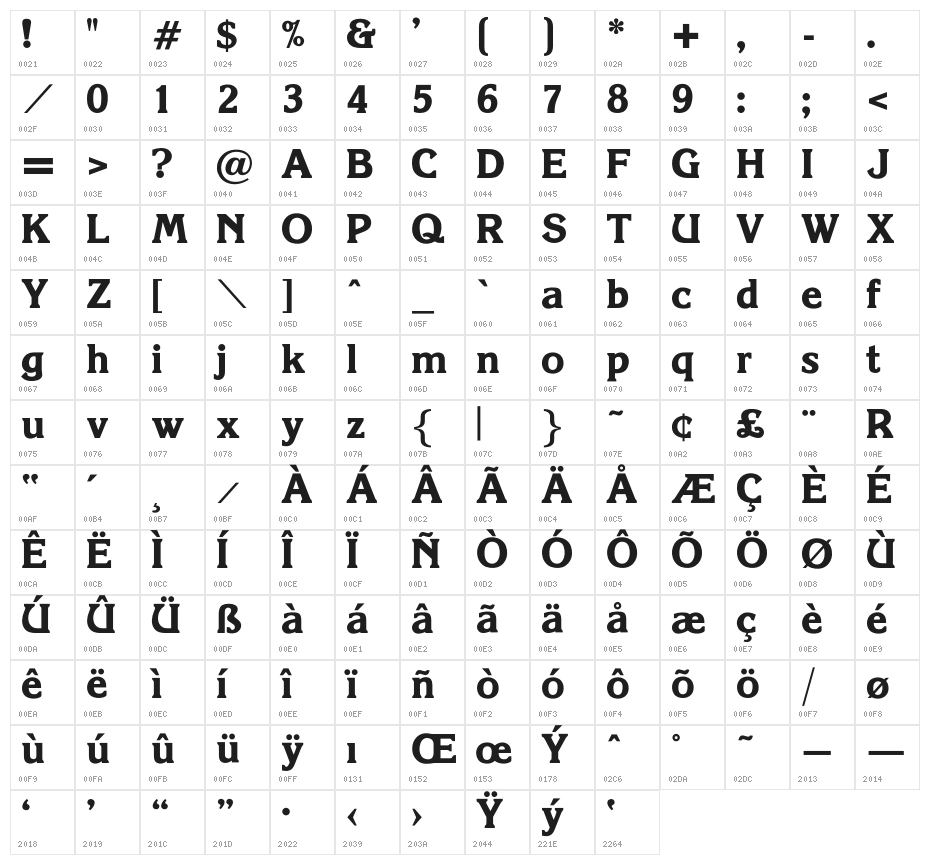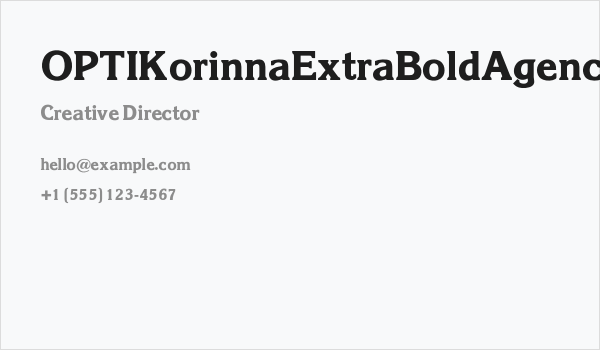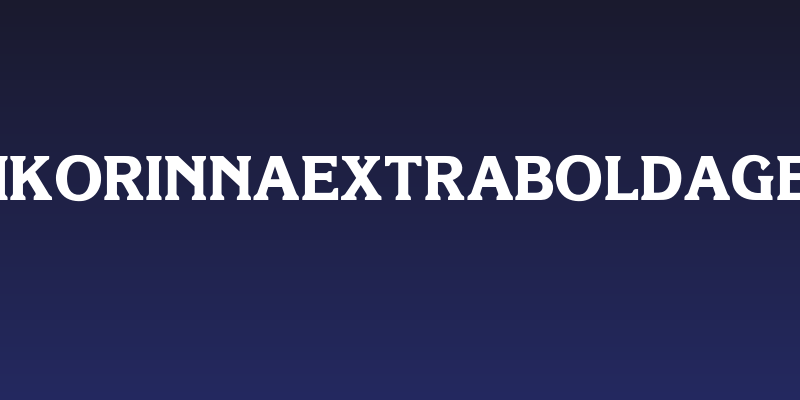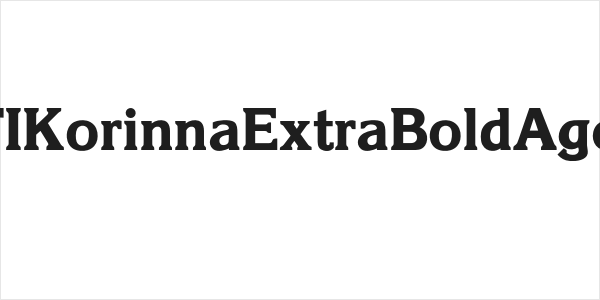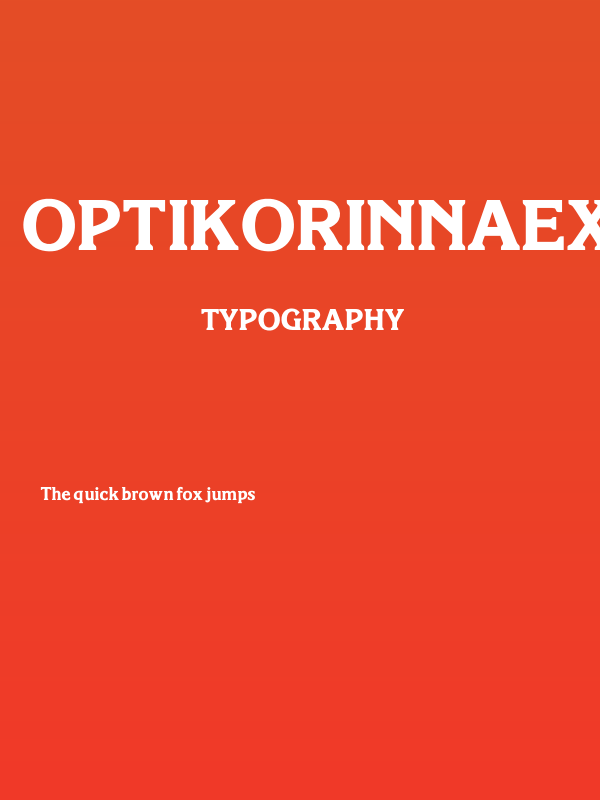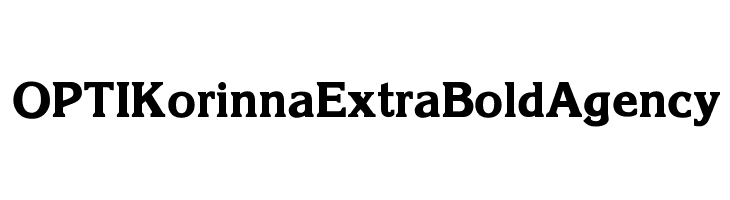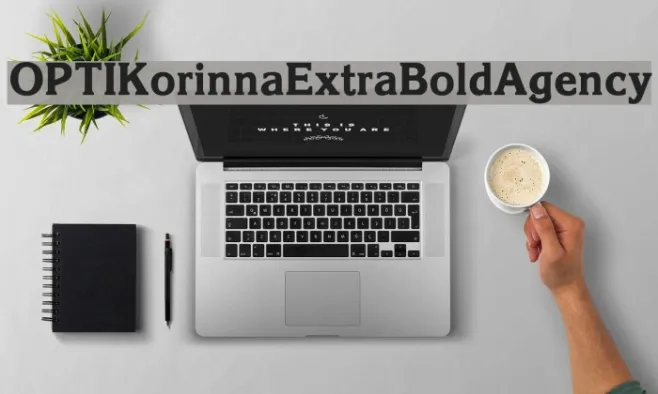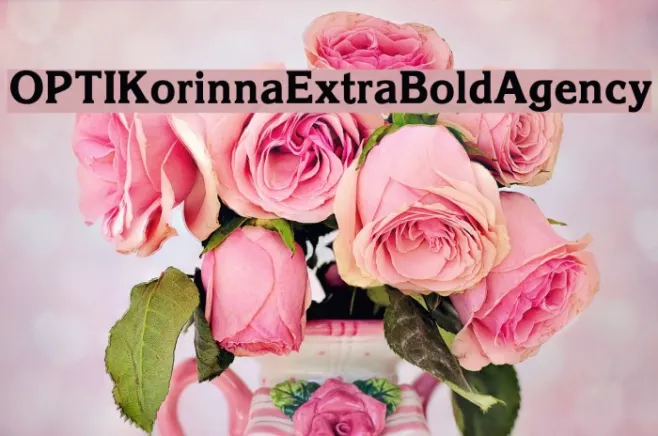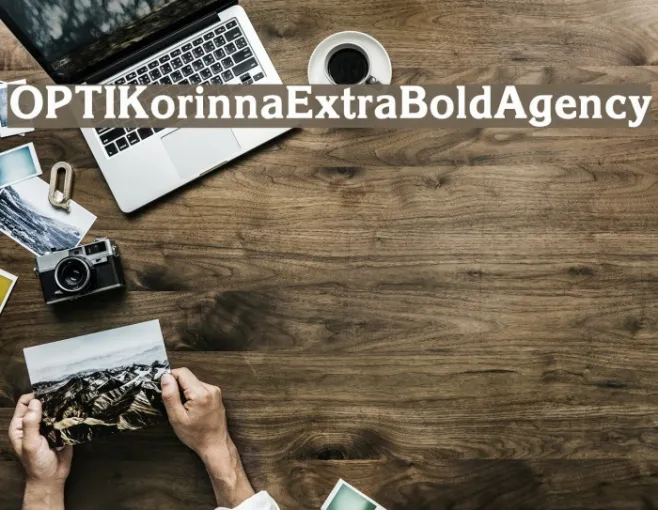
OPTIKorinnaExtraBoldAgency Font
OPTIKorinnaExtraBoldAgency Description
This font exhibits a bold and commanding presence with its thick strokes and strong serifs. The uppercase letters are particularly striking, with a robust and authoritative appearance. The lowercase letters maintain a consistent weight, providing a harmonious balance between the two cases. The numerals are clear and legible, matching the boldness of the alphabetic characters. Special characters are well-defined, ensuring versatility in various design applications. The overall design is both classic and modern, making it suitable for a wide range of uses.
| Proposed Projects | Ideal for headlines, branding, posters, and any project requiring a strong visual impact. |